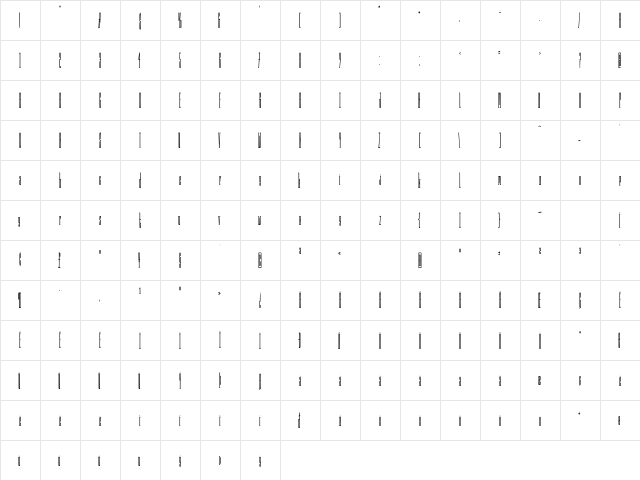
Long Rider Alternative Regular
| Foundry | Wing's Art Studio |
| Designer | Christopher King |
Design Context for Long Rider Alternative Typeface
Long Rider Alternative offers clean, dependable letterforms without strong stylistic allegiance, making it a practical choice for designers who need flexibility.